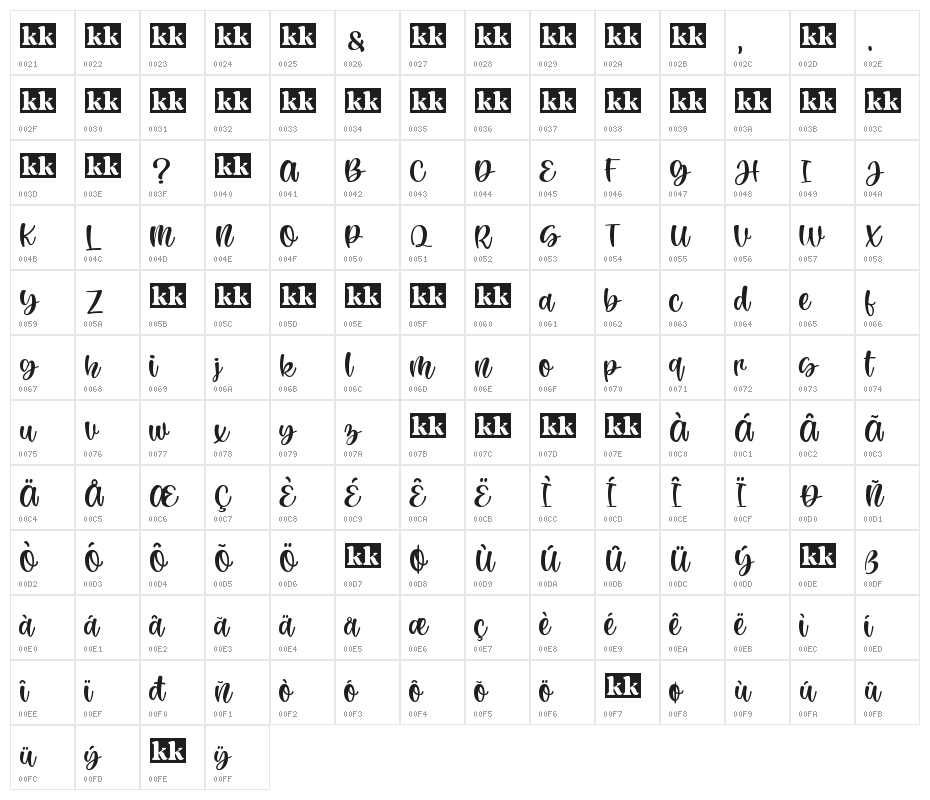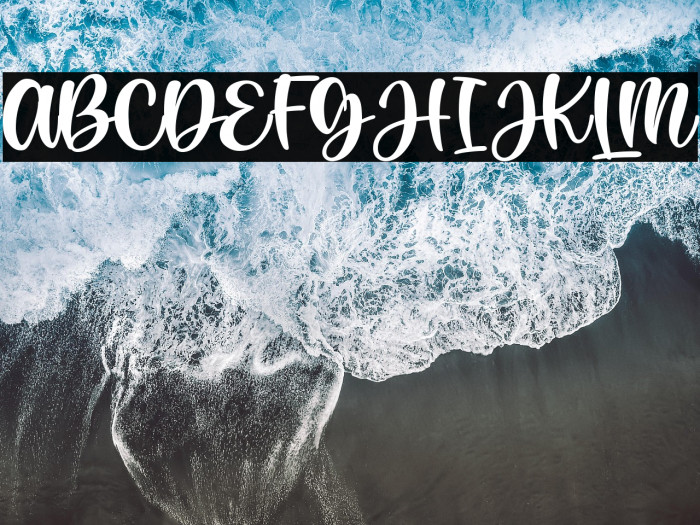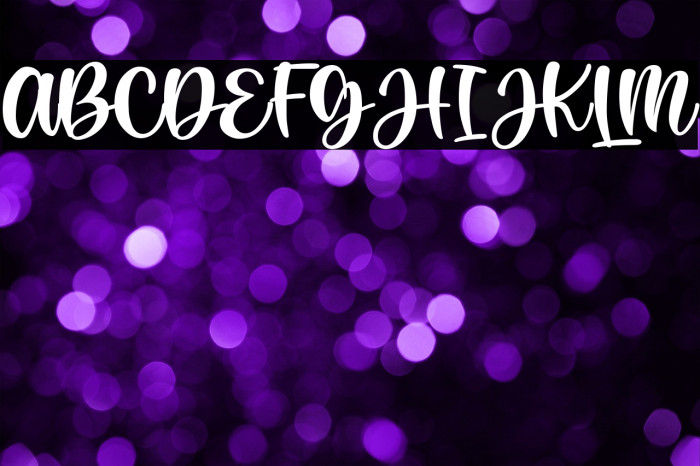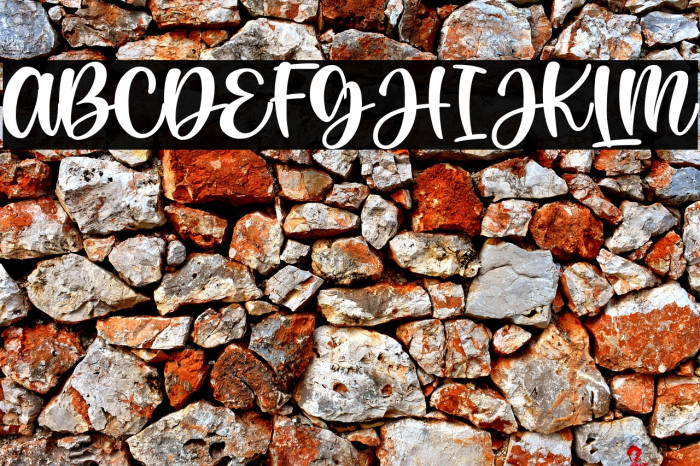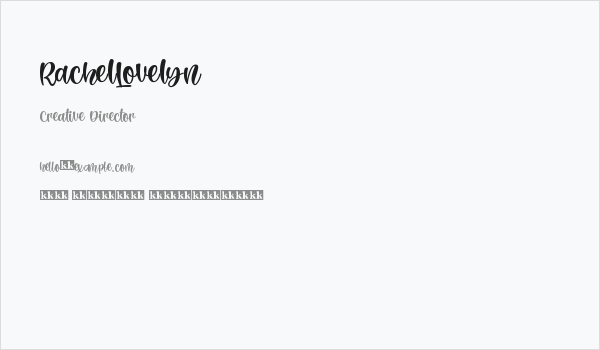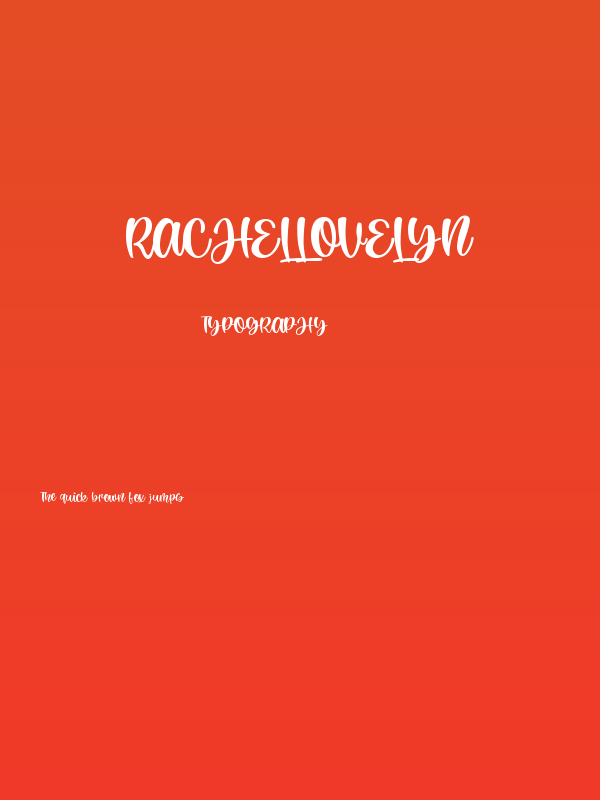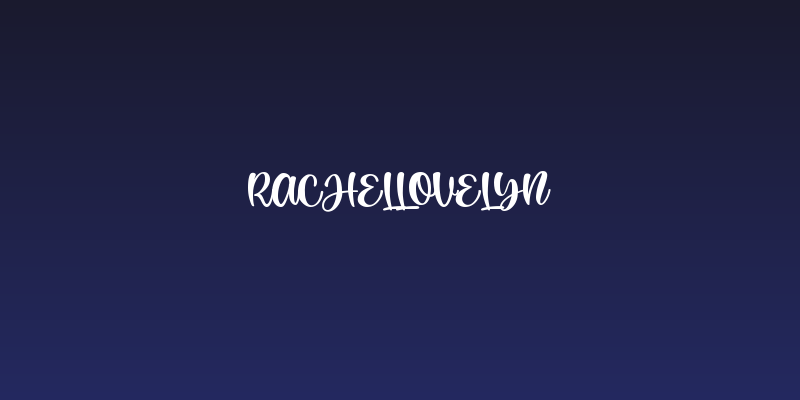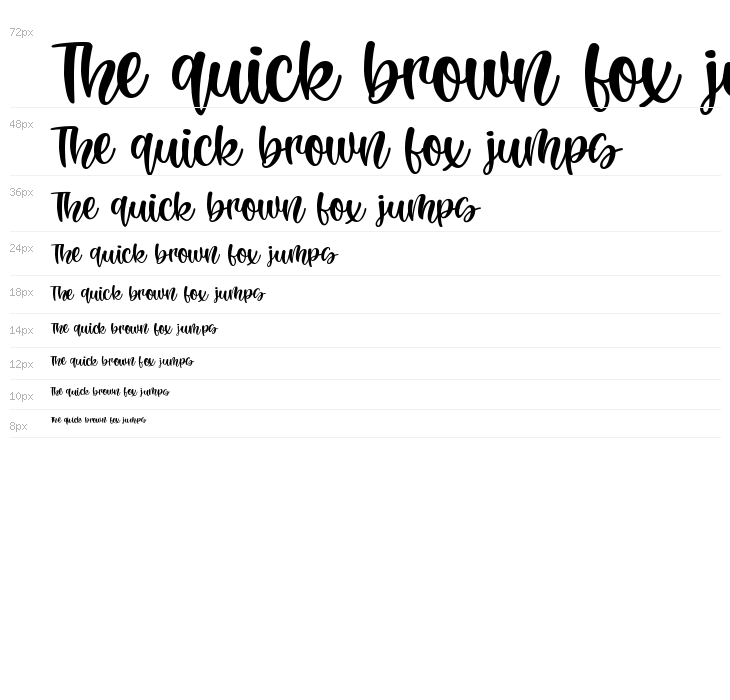
RachelLovelyn Font
RachelLovelyn Description
This font features a lively and expressive script style with bold, flowing strokes that convey a sense of elegance and playfulness. The uppercase letters are prominently designed with smooth curves and a consistent stroke width, while the lowercase letters maintain a cohesive look with slightly more variation in their forms. The font includes a full set of numerals and a selection of special characters, ensuring versatility for various design needs. Its bold appearance makes it stand out, yet the smooth, connected strokes provide a harmonious flow, ideal for creative and artistic projects.
Use CaseLogos, Headlines, Invitations
Proposed ProjectsIdeal for wedding invitations, greeting cards, branding projects, and social media graphics.